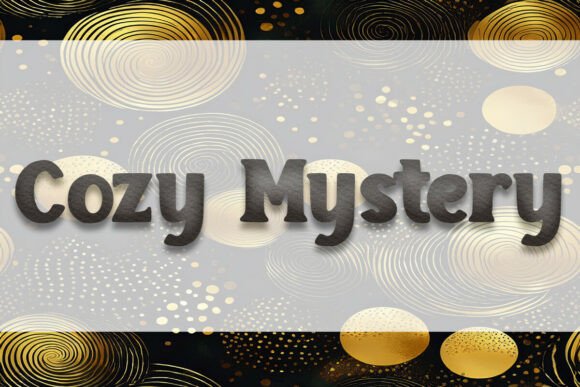
Unravel the Enigma of Cozy Mystery Font: Elevate Your Design to Sophistication
Are you a designer, crafter, or branding enthusiast seeking to infuse your projects with a dash of charm and mystique? Look no further than the Cozy Mystery font, a typographic solution that’s built to captivate and intrigue. In this article, we’ll delve into the allure of Cozy Mystery, exploring its features, benefits, and applications that make it an ideal choice for advertising, headings, blogs, logos, and more.
The Essence of Cozy Mystery Font
Cozy Mystery is a thoughtfully crafted font that embodies the essence of sophistication and enigma. Its unique design elements are carefully woven to create a sense of intrigue, making it perfect for projects that require a touch of mystery and allure. Whether you’re working on a branding campaign, a blog post, or a logo design, Cozy Mystery is sure to leave a lasting impact on your audience.
Key Features of Cozy Mystery Font
- Unique Letterforms: Cozy Mystery boasts distinctive letterforms that exude charm and character. Each letter is carefully designed to convey a sense of mystique, making it perfect for projects that require a touch of enigma.
- Sophisticated Style: The font’s sophisticated style is ideal for creating captivating headings, magnetic titles, and memorable logos.
- Versatility: Cozy Mystery is a versatile font that can be used across various design projects, from advertising and branding to blogging and crafting.
- Easy to Read: Despite its unique design, Cozy Mystery remains easy to read, making it perfect for body text and longer content.
Applications of Cozy Mystery Font
Cozy Mystery is an incredibly versatile font that can be used in a wide range of design projects. Here are some of the most popular applications:
- Advertising: Use Cozy Mystery to create captivating ad copy that grabs attention and leaves a lasting impression.
- Headings and Titles: Add a touch of sophistication to your headings and titles with Cozy Mystery’s unique letterforms.
- Blogs and Articles: Use Cozy Mystery to create engaging blog posts and articles that stand out from the crowd.
- Logos and Branding: Create memorable logos and branding materials with Cozy Mystery’s distinctive style.
- Crafting and DIY: Add a touch of charm to your crafting and DIY projects with Cozy Mystery’s whimsical design.
Benefits of Using Cozy Mystery Font
So, why choose Cozy Mystery for your design projects? Here are some of the key benefits:
- Boosts Branding Prowess: Cozy Mystery is designed to elevate your branding game, making it perfect for businesses and individuals looking to create a lasting impression.
- Increases Engagement: The font’s unique design elements are sure to capture attention and increase engagement with your audience.
- Versatile: Cozy Mystery can be used across various design projects, making it a valuable addition to your font library.
In conclusion, Cozy Mystery is a typographic solution that’s built to captivate and intrigue. With its unique design elements, sophisticated style, and versatility, it’s perfect for designers, crafters, and branding enthusiasts looking to elevate their design to a level of sophistication and mystique. Whether you’re working on a branding campaign, a blog post, or a logo design, Cozy Mystery is sure to leave a lasting impact on your audience. So, step into the allure of Cozy Mystery and unlock the secrets of captivating design.
Immerse yourself in the intrigue of the Cozy Mystery font, an ideal choice for captivating advertising, magnetic headings, engaging blogs, and memorable logos. It’s a font that’s built to boost your branding prowess and make a lasting impact. Step into the allure of the Cozy Mystery font and elevate your design to a level of sophistication and mystique. Perfect for those seeking to inject a dash of charm into every letter and line, Cozy Mystery is the typographic solution for your needs!